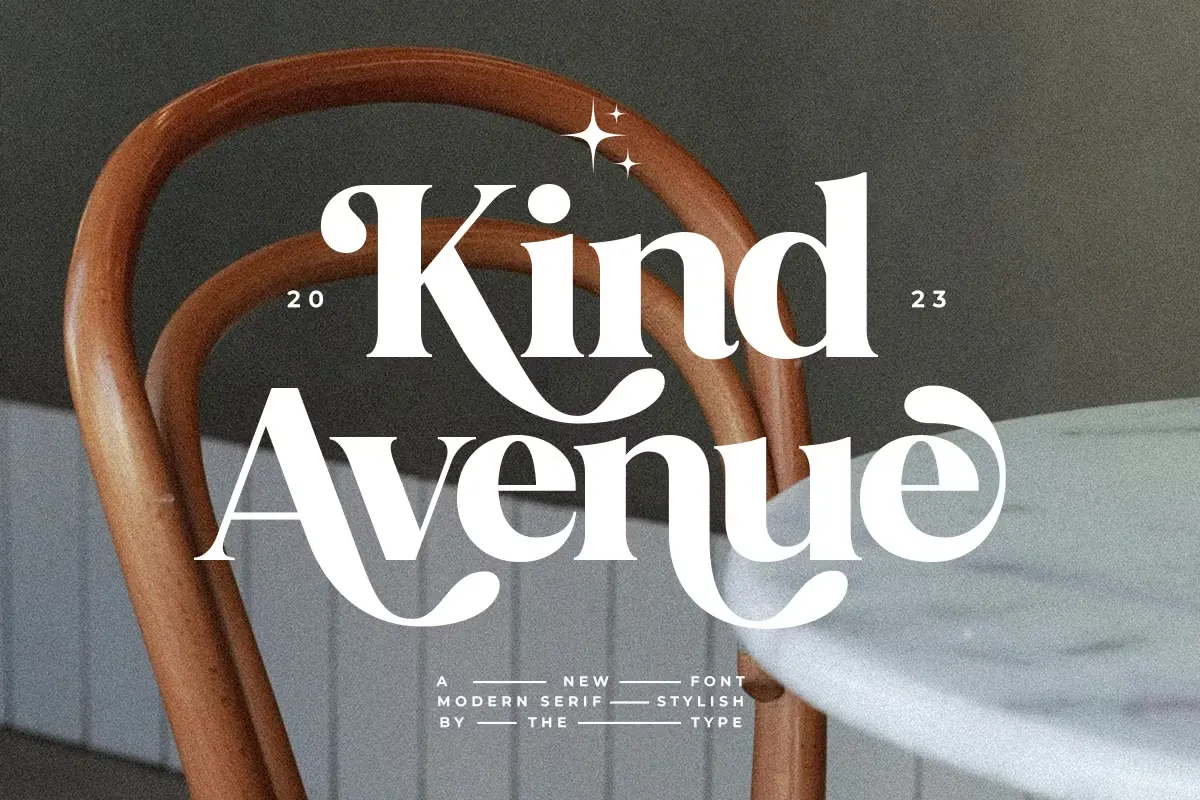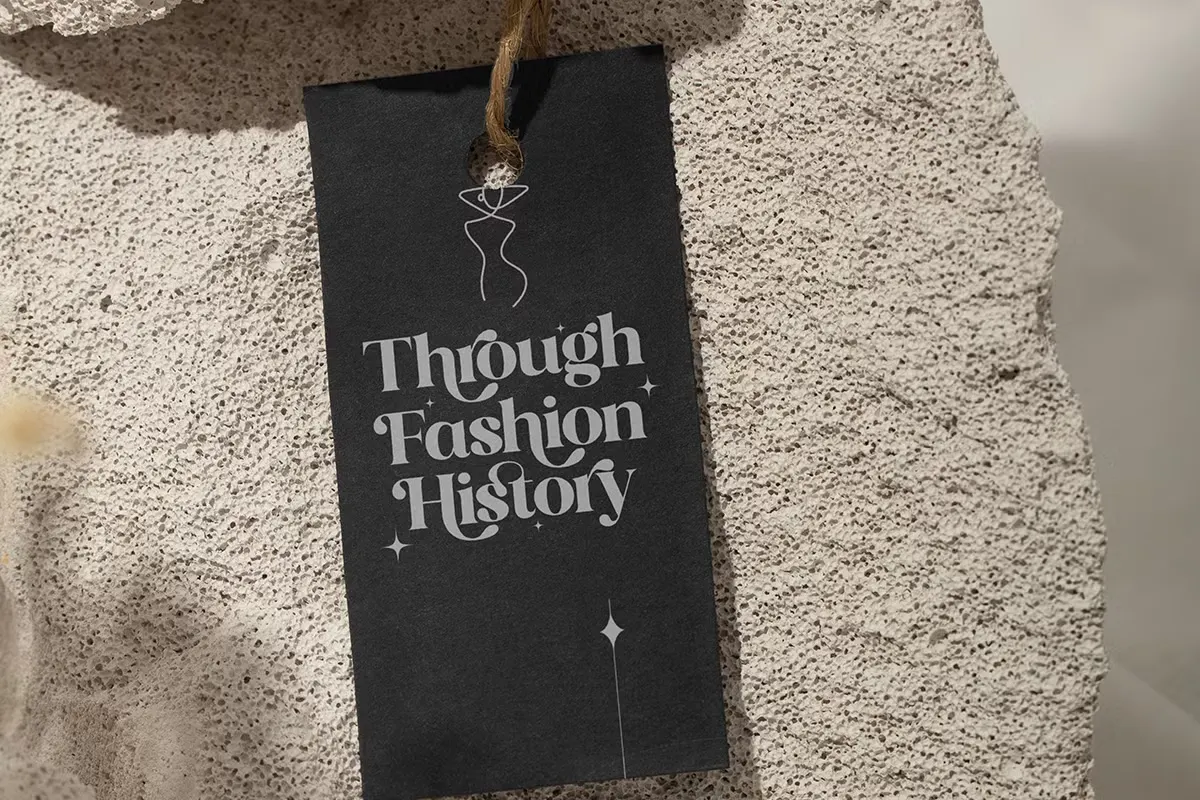
Kind Avenue Font
About Kind Avenue Font
I’m a typographer and graphic designer who loves exploring typefaces that can shift between classic and modern moods. During a recent branding project, I tested the Kind Avenue Font and was impressed by how adaptable it felt.
At first, it gave my layouts a conservative retro serif look, but when I played with its alternates and ligatures, the text became expressive and modern. This dual personality made it perfect for both elegant branding and playful creative projects.
After using it across logo sketches, social media templates, and packaging visuals, I realized it had much more range than I expected. That’s why I wanted to share this review with fellow designers who might be looking for a typeface with both personality and versatility.
The Font Type and the Designer
The Kind Avenue Font is described as a stylish retro serif with a unique blend of vintage elegance and expressive modern style. Created by The Type, this font family was designed to meet the needs of projects that demand both professionalism and creativity.
Kind Avenue has the ability to shift depending on how it’s used. In its simplest serif form, it looks conservative, refined, and perfect for texts or more traditional design contexts. But with the addition of alternates and ligatures, the typeface transforms into something more expressive, almost playful. This flexibility makes it suitable for projects that need variation in tone without changing fonts altogether.
The designer also ensured that the font included multilingual support, covering accented characters for many European languages. This makes it valuable for international branding projects or cross-market campaigns. Offering formats that install easily across desktop and web platforms, Kind Avenue is accessible to both beginner designers and experienced professionals.
By combining retro charm with modern adaptability, The_Type has created a typeface that’s both creative and versatile, allowing designers to craft logos, branding, and editorial layouts with ease.
Features of This Serif Font
The Kind Avenue Font comes packed with features that make it more than just a serif typeface. It offers alternates and ligatures, giving designers control over how their text appears. This means you can adjust the style to be conservative and refined, or switch it up to be bold and expressive.
It supports uppercase, lowercase, numerals, and symbols, covering all the basics for both digital and print work. The inclusion of multilingual characters ensures the typeface is not limited by language, making it suitable for global use. This is a key strength for brands that operate across multiple regions.
Kind Avenue also shines in its balance of vintage and modern design. It carries the sophistication of a traditional serif but can seamlessly adapt to stylish and contemporary layouts. Its versatility makes it suitable for both formal projects and creative branding.
For editorial and magazine layouts, its alternates and ligatures provide variety, keeping headlines and feature spreads visually interesting. The retro influence makes it appealing for fashion publications, creative magazines, and lifestyle brands.
On social media platforms, Kind Avenue creates stylish text overlays and expressive captions that stand out in crowded feeds. Its balance of classic and modern means it adapts well to Instagram posts, Pinterest graphics, and branded templates.
In packaging design, the serif elegance adds a premium touch. Whether for cosmetics, boutique products, or retro-inspired goods, the typeface elevates the brand image. Its expressive alternates also work well for invitations, postcards, and creative campaigns.
Because it’s versatile, this font isn’t locked to one style. It’s just as comfortable in conservative editorial projects as it is in playful branding concepts. This adaptability makes it a great choice for designers who want a single typeface that can do more than one job.